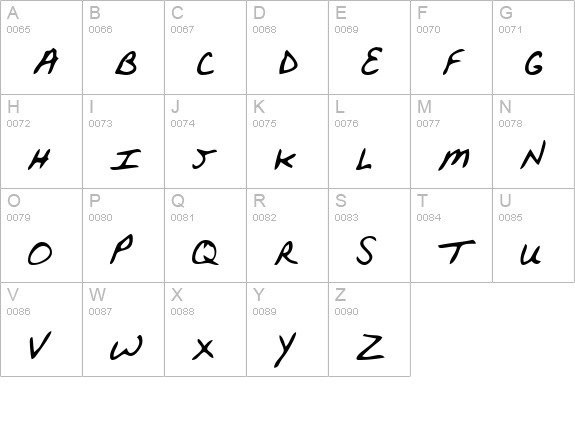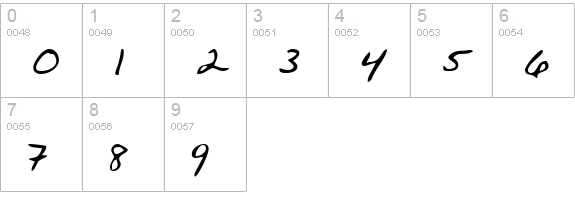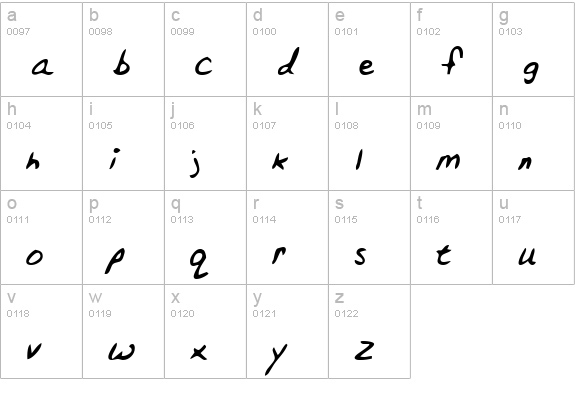
JustinsHand Regular is the standard, neutral variant in the JustinsHand typeface family \xE2\x80\x94 well suited to general body text, paragraphs, and standard typographic work.
JustinsHand Regular font is a charming and playful typeface that exudes a sense of warmth and friendliness. With its handwritten style and casual elegance, this font is perfect for adding a personal touch to your designs. Whether you're creating invitations, greeting cards, or social media graphics, JustinsHand Regular will bring a unique and inviting feel to your projects. Best of all, JustinsHand Regular font is available for free download at FontsMarket.com. This means you can easily access this lovely font to enhance your creative projects without any cost. Don't miss out on the opportunity to add a touch of whimsy to your designs with JustinsHand Regular font - download it today and let your creativity shine!